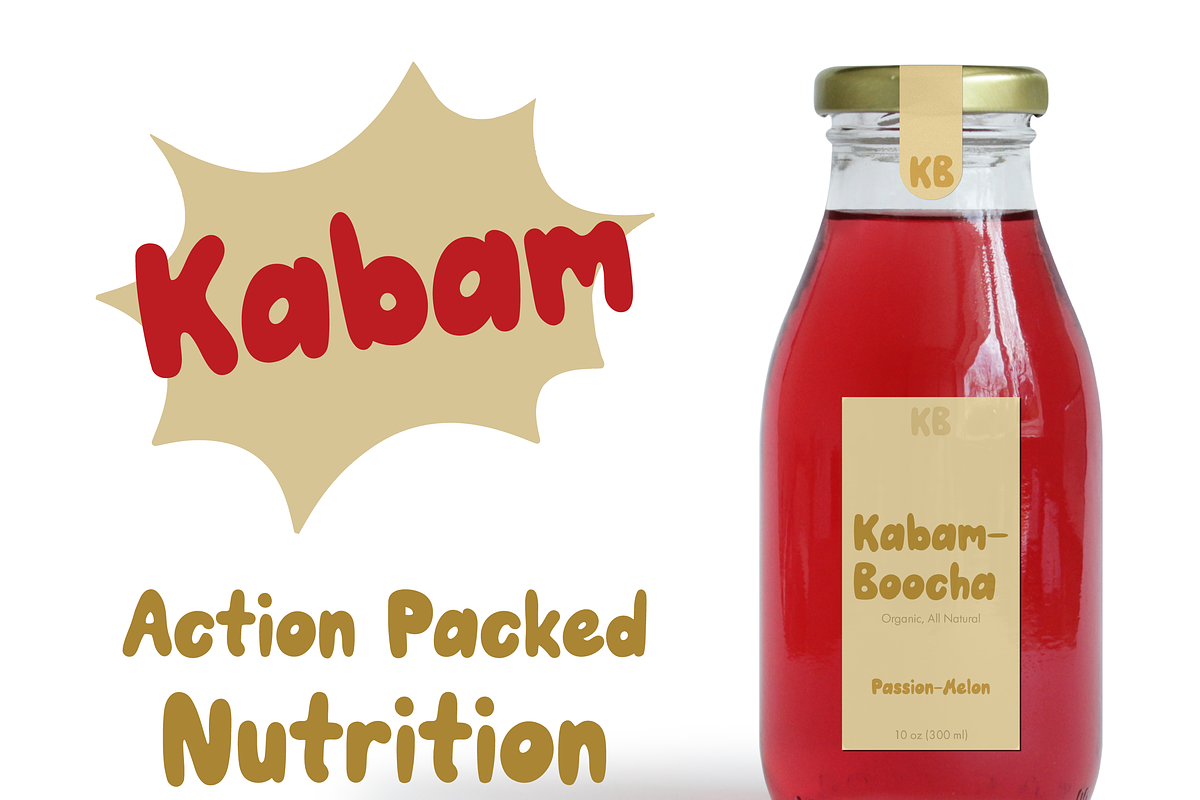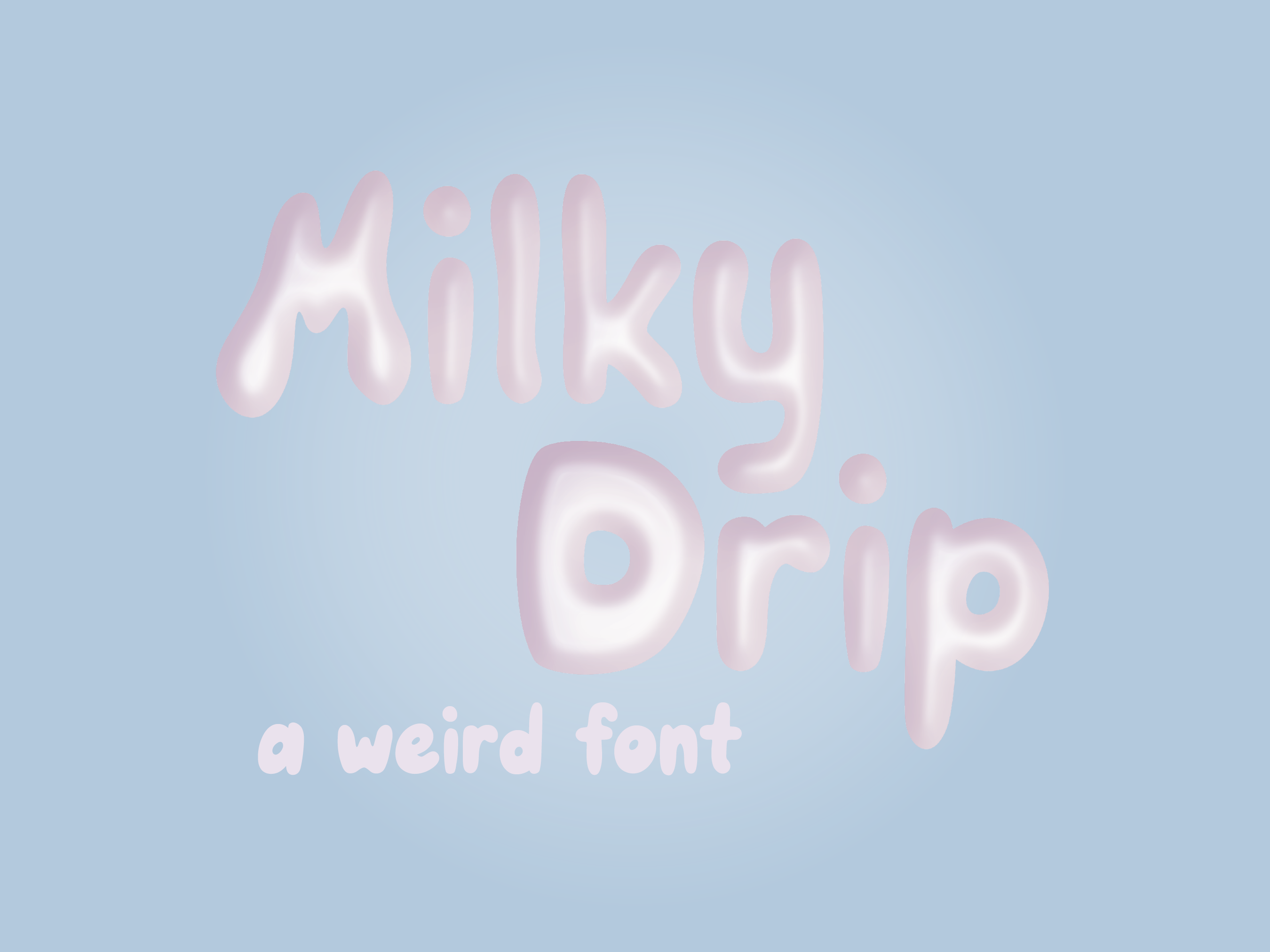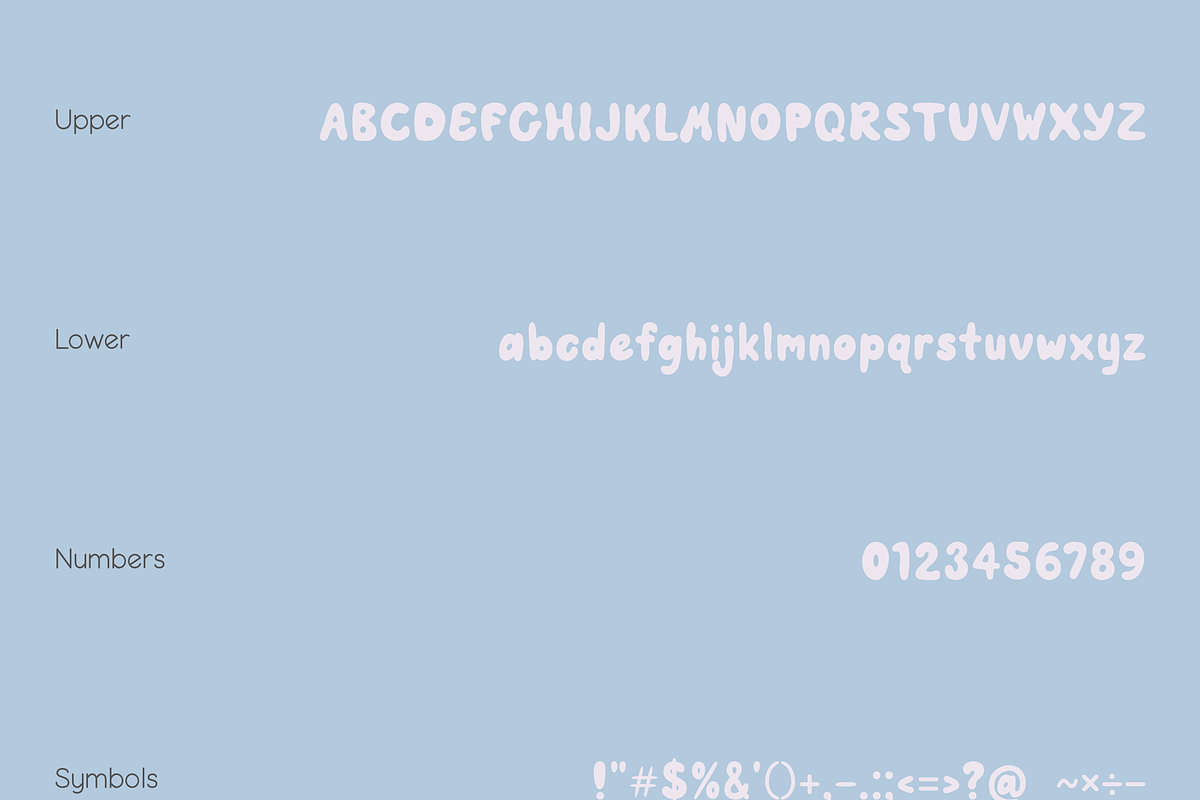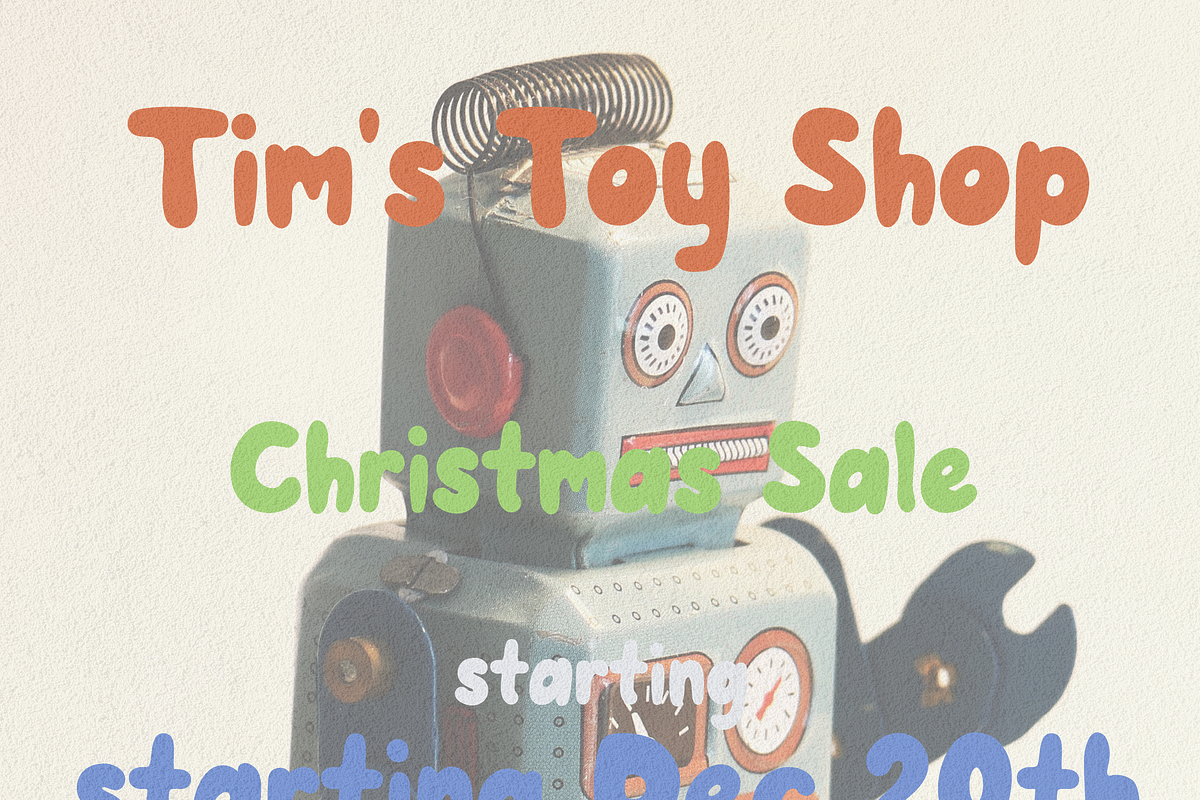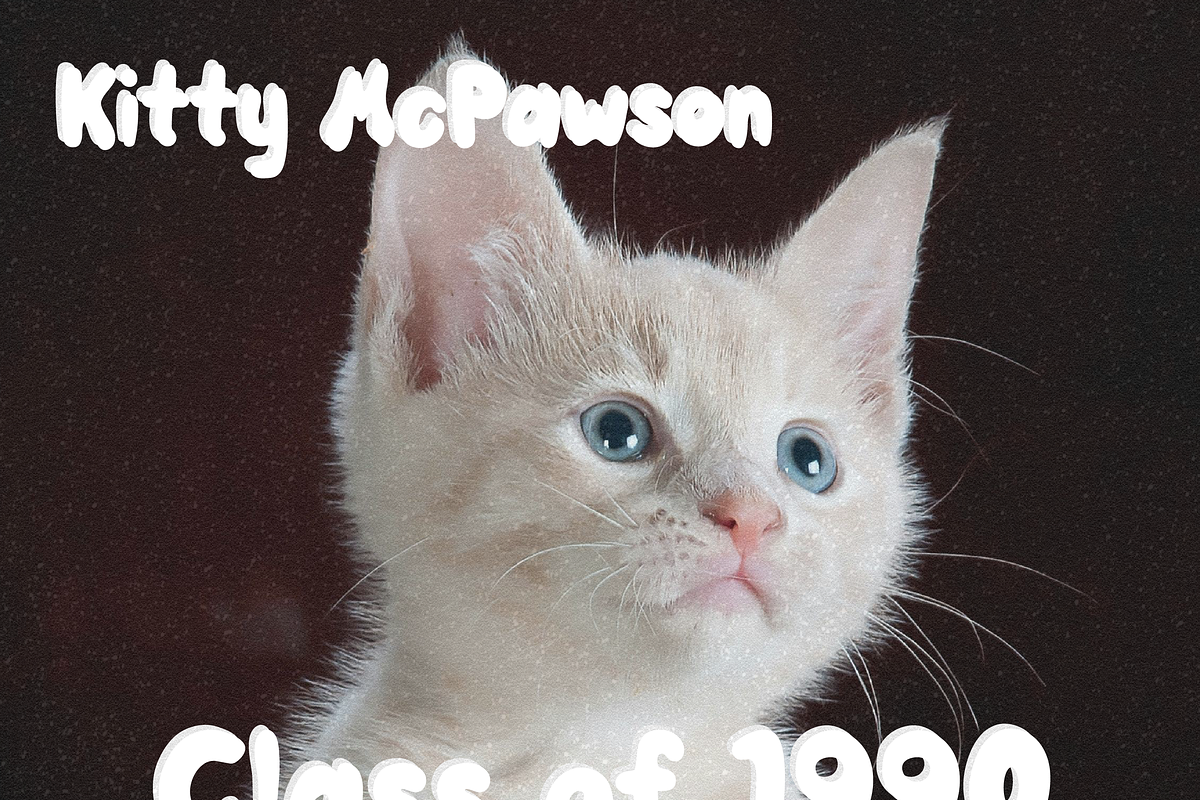
Milky Drip Font
Milky Drip is a non-uniform drippy, melty, and cute font. It features bubbly letters that have different details to every letter making each work unique. This fun display font that is perfect for many uses from branding to personal blogs.
Great for branding, crafting, display font, wall art, handcrafted, hand written, handwritten, digital planner, and so much more.